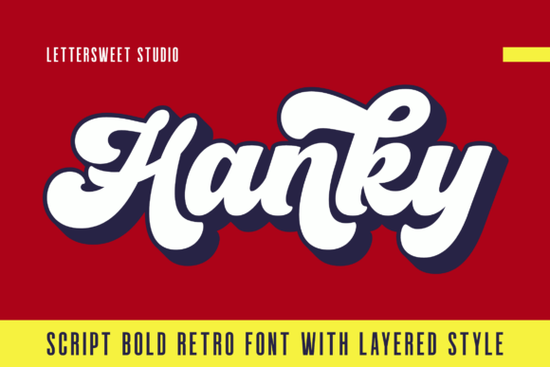
Designers, crafters, and small business owners looking for a unique way to add character to their projects might find that the Hanky Font is just what they need. This bold script font brings a vintage flair that can elevate everything from logos to social media graphics. With its thick strokes and smooth curves, Hanky offers a dynamic look that stands out without being overwhelming.
One of the standout features of the Hanky Font is its layered shadow effect. This gives text a 3D appearance that adds depth and energy to any design. Whether you're working on a retro-themed project or trying to create something that feels nostalgic, this font provides the right balance of style and functionality. It supports uppercase and lowercase letters, as well as multilingual characters, making it versatile for a wide range of uses.
What Makes Hanky Ideal for Vintage Projects?
The Hanky Font was inspired by classic sign painting and retro branding, which means it’s perfect for anyone looking to bring a nostalgic feel to their work. Its playful attitude and bold style make it ideal for vintage branding, posters, and headlines. If you're designing for a café, diner, or sport-themed project, this font can help you achieve a look that feels authentic and eye-catching.
For those who want to experiment with different styles, the font includes a built-in shadow layer that enhances the visual impact of your text. This feature allows you to create designs that feel more dimensional without needing additional tools or effects. The PUA encoding also makes it easy to access all the characters you need, ensuring a smooth workflow.
How to Use Hanky in Different Design Projects
Whether you're creating packaging, apparel, or social media graphics, the Hanky Font can be a valuable addition to your design toolkit. Its versatility makes it suitable for both digital and print projects. For example, using it on a sports jersey can give your design a retro twist that feels fresh and modern at the same time.
If you're working on a poster or headline, the bold script style of Hanky can help you capture attention immediately. Its smooth curves and thick strokes ensure that your text remains readable while still having a strong visual presence. For crafters and print-on-demand sellers, this font can help create unique products that stand out in a crowded market.
Whether you're a designer, crafter, or small business owner, the Hanky Font offers a fresh and stylish way to add personality to your work. Its combination of boldness, versatility, and nostalgic charm makes it a valuable tool for a wide range of projects.